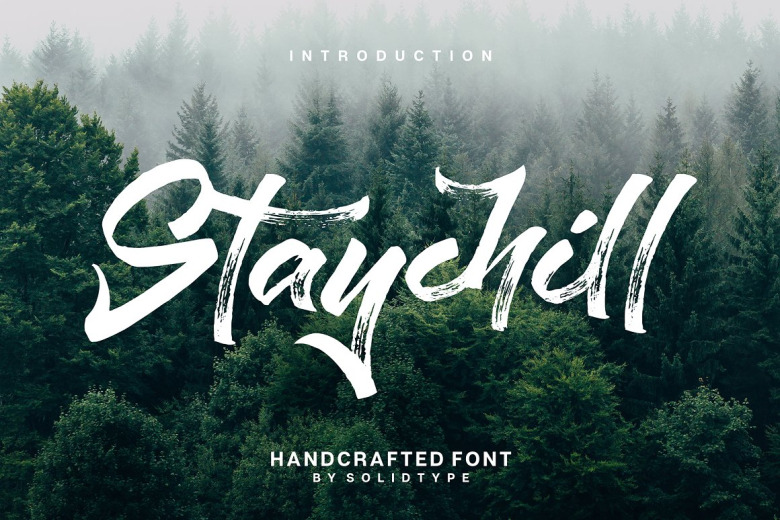
Staychill Font
Staychill is a unique textured brush font, a contemporary approach to design, a handmade natural with an irregular baseline. Perfect for use in the title design. This type of font on various products, titles, apparel, invitations, books tittle, stationery design, quotes, branding, logos, greeting card, t-shirt, packaging design, poster, and more.
Staychill includes Uppercase and Lowercase text in the font and multi-projecting, symbols, numbers, punctuation, alternate and ligature.
Staychill Brush Script Font